What is A Display Font: Qualities, Use, and Examples
What is a display font? You might have seen one with a distinct characteristic and another with a different appearance. Yet, all the display fonts share one similarity: the expressive flair that enhances their visual attractiveness. Check out the information below to know more about them, including how to use them and its examples.
Key Takeaways:
- Like youthful life with much passion, display fonts showcase a fearless impression through their boldness and expressiveness.
- Display fonts also prioritize detailed visual impact, but their size is usually massive.
What are Definition and Display Font Characteristics?
Have you ever found yourself drawn into a headline of a brochure or flyer? Or perhaps have you ever got yourself hooked to play a new game or watch a film because of its title and cover design? Those projects could be using display fonts. This term stands for the font category of a short-form and mostly the shape is huge.
André Kluyts even explains that they are always the head-turners because of their fearlessness in embracing the unconventional details, dramatic proportions, and other attention-grabbing qualities.
The unusual characteristics are seen as rebellious against the traditional types, but their main purpose is to show off. That is why display fonts are commonly encountered in the fashion, food, drinks, and entertainment industries.
What Are Display Fonts Used For?
If your creative projects are desperate for attention, just place a display font on the headlines or titles. However, it is recommended to align the mood with your brand message, too. For example, you might need to combine the unconventional visual of a display font with serifs to balance the rebellion with professionalism and elegance.
On the other hand, the serifs are absent from the sans-serif type to prioritize minimalism and straightforwardness. You may also be able to increase your creative projects’ readability with the type. The last type is the decorative ones. Details are the key point in this type.
So, unless for artistic or thematic purposes, you can avoid this handwriting type and prevent your designs from overusing sophistication.
10 Examples of Display Fonts For Showstopping Designs
Hopefully, your question, ‘What is a display font?’ has been answered. Now, you probably need some fonts to decorate your designs. Below are some display font examples from our collections to make your project designs bolder and more unique, yet still according to your message.
1. BLAZEBOX – Bold & Strong Fire Display Font
Set your gaming-related ablaze with burning passion and bravery with the flame-shaped decoration and daring contrast of Blazebox, yet balance the fierce with the geometrical letter shapes.
2. Bokerough – Textured Handwritten Display Font
Bring out the summery vibe of your designs with Bokerough’s handcrafted, untidy and thick lines, like the rough sketch of an experienced artist in the making of a masterpiece.
3. BONEZKUL – Bone-Shaped, Halloween Display Font
Bonezkul’s bone-shaped letter forms scare children away and give them nightmares, but their plumpness sends a whimsical impression, like loving parents in a Halloween costume with tons of candies in their hands.
4. ELEKTRIX WIZARDS – Electric Inspired Font
Strike the techno or alternative genre music stages, festivals, and e-sport gamers’ audience with Elektrix Wizards’ lightning-bolt letter forms and energetic medium-weight.
5. FIRECHIKNS – Blazing Fire Hot Display Font
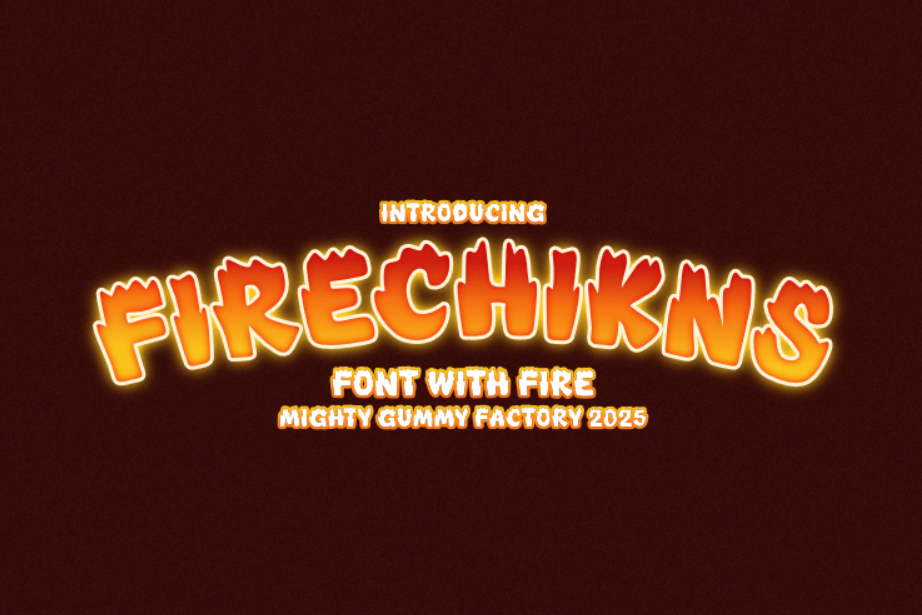
Tease your potential customers with your brand new spicy-related menu in your restaurants, with Firechikns’ round edges, with the decoration of flames at the top, as if the adrenaline kicks in as the spice hits your tongue.
6. GOBLOCKIE – Fun, Geometric, Block Font
What is a display font? Goblockie is! The angularity and irregularity of the font bring out the entertaining side, whereas the geometric quality maintains the formal vibe on your YouTube thumbnails and poster headlines.
7. GROMANS – Modern Greek Display Font
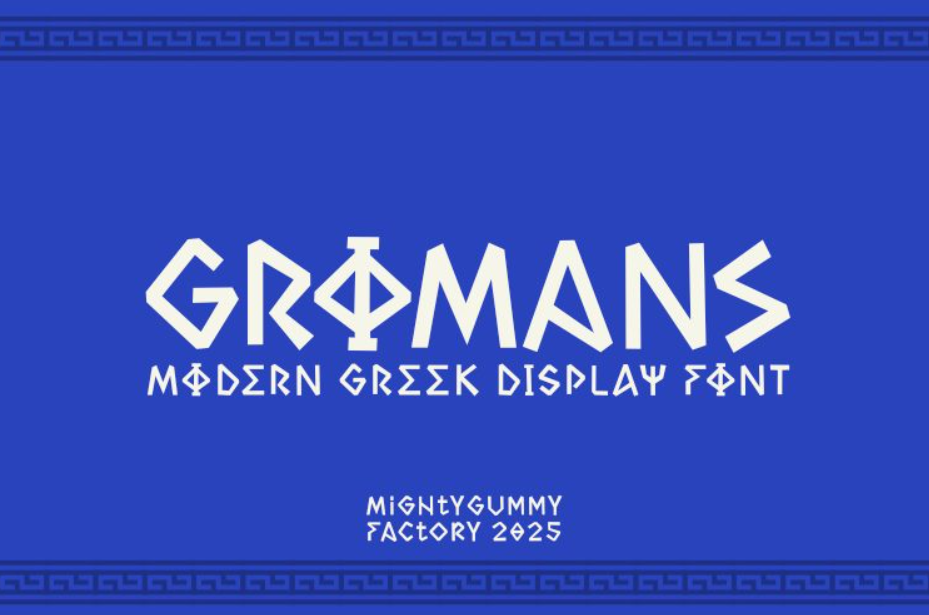
Get people immersed in your medieval-inspired games, books, and films with Gromans’ Greek-like letter forms and inspiring boldness that exudes the ancient yet majestic beauty of the Roman Empire.
8. KRONKELD – Nordic Rune Inspired Display Font
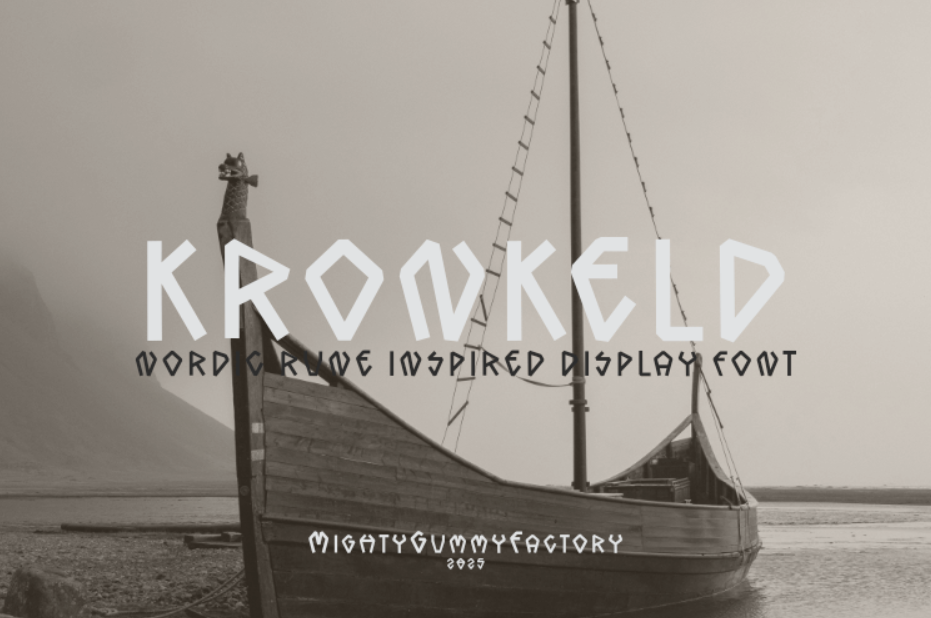
Pique your audience’s curiosity and lure them to play your medieval-themed games or any other project with Kronokeld’s Nordic-rune-like letter shapes that blend in with the mysterious angularity and enchanting thickness.
9. PINLOCK – Lovely Fun Bold Font
Fill everyone’s heart with unwavering affection with Pinlock’s heart-filled letter forms and round edges on your self-crafted merchandise, stickers, and social media projects.
10. Popstar – Fun Bold Star Themed Font